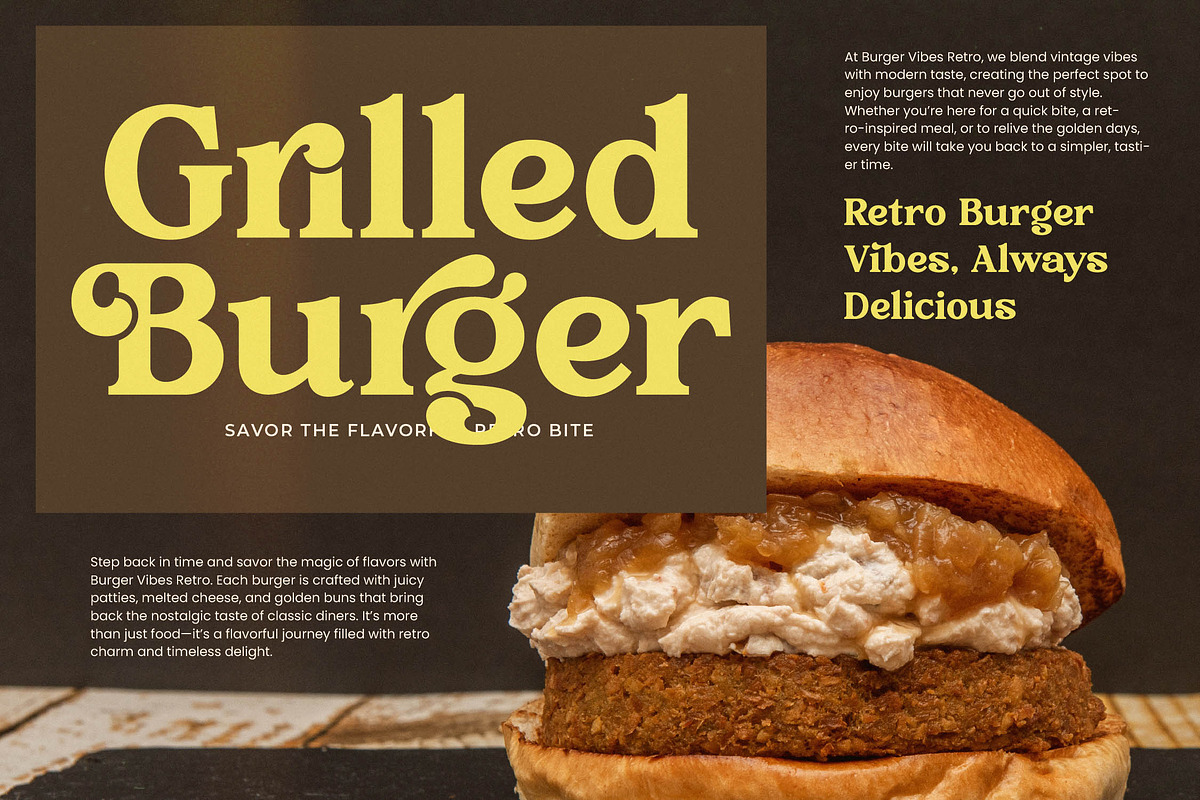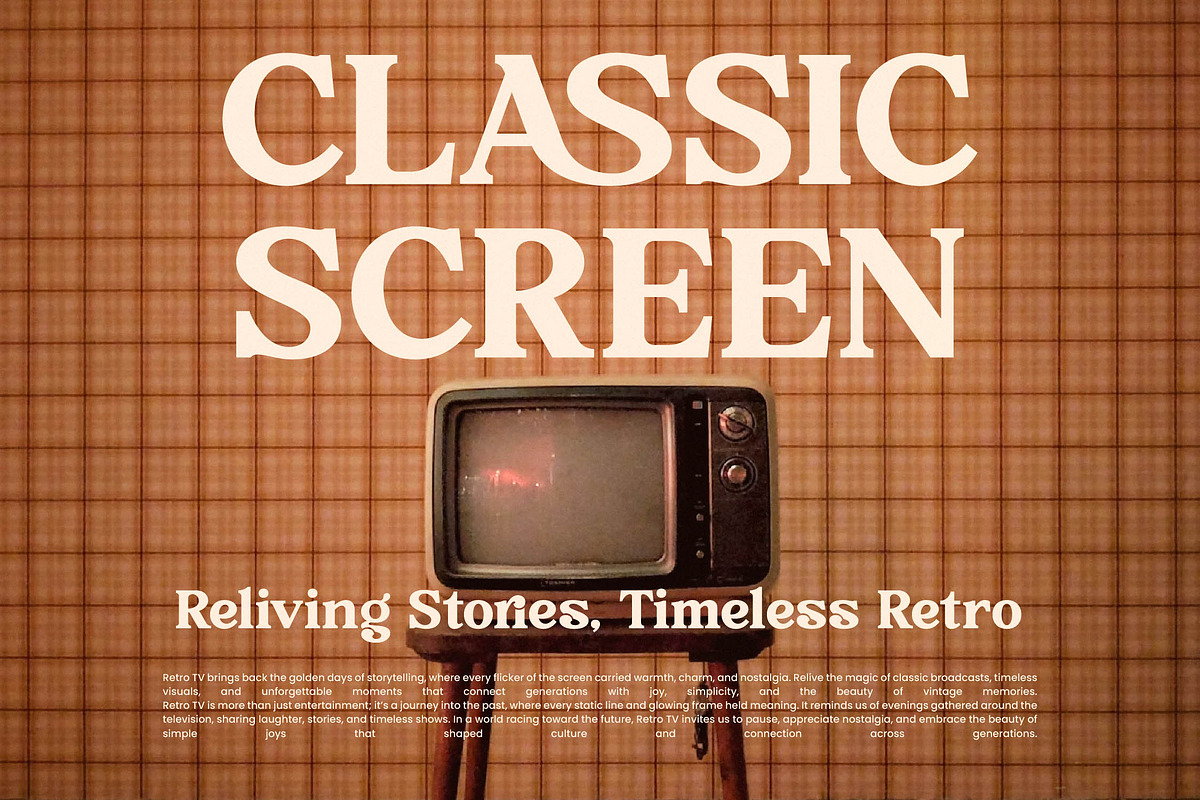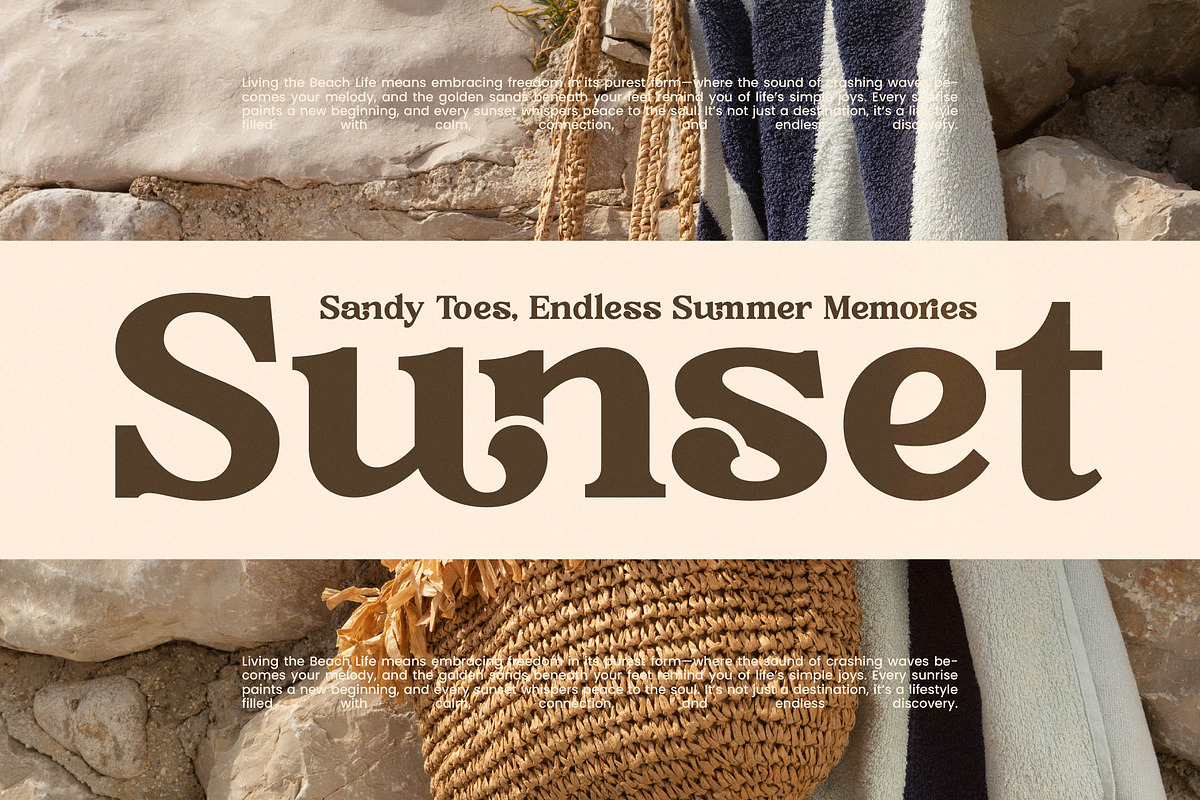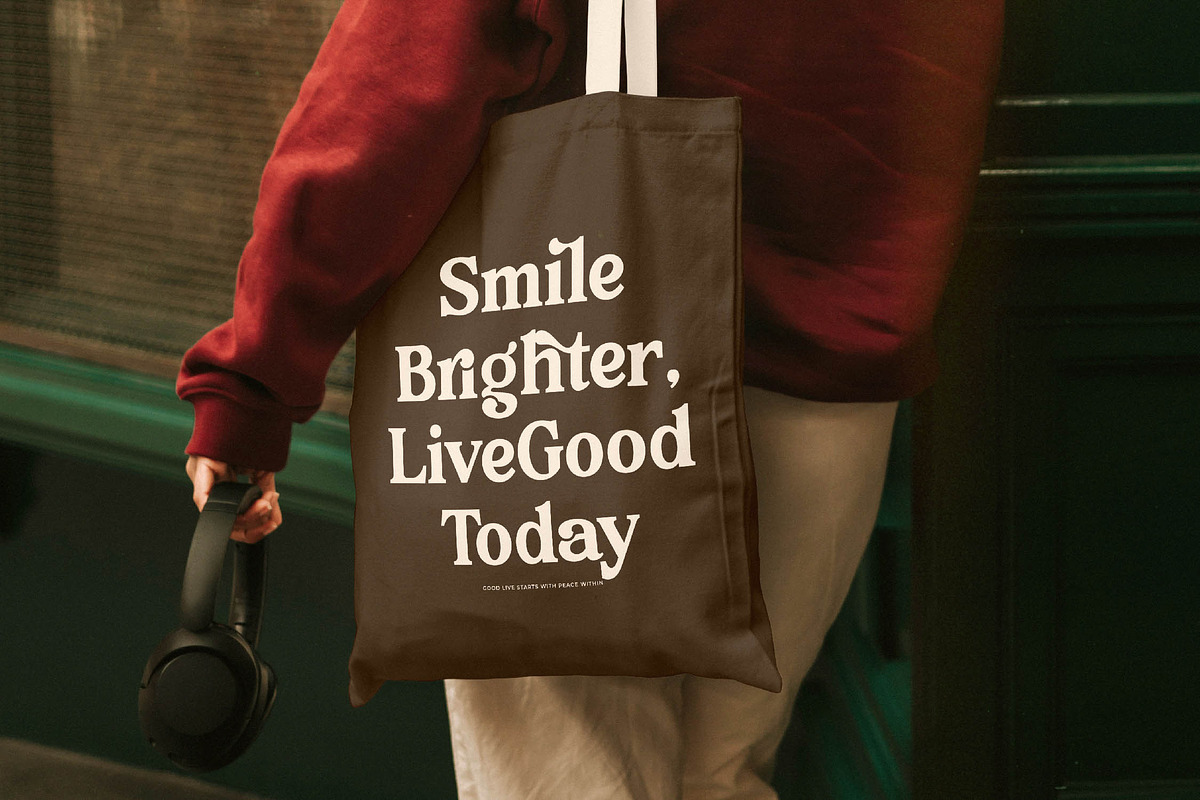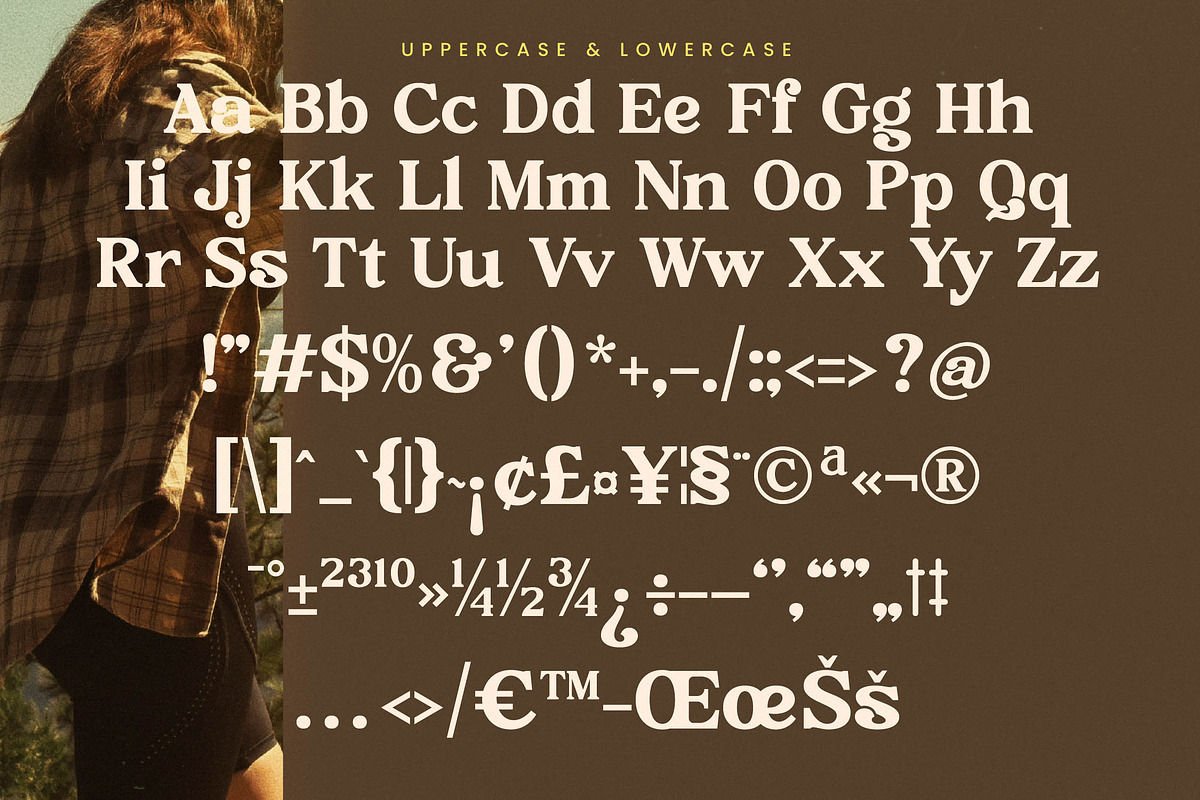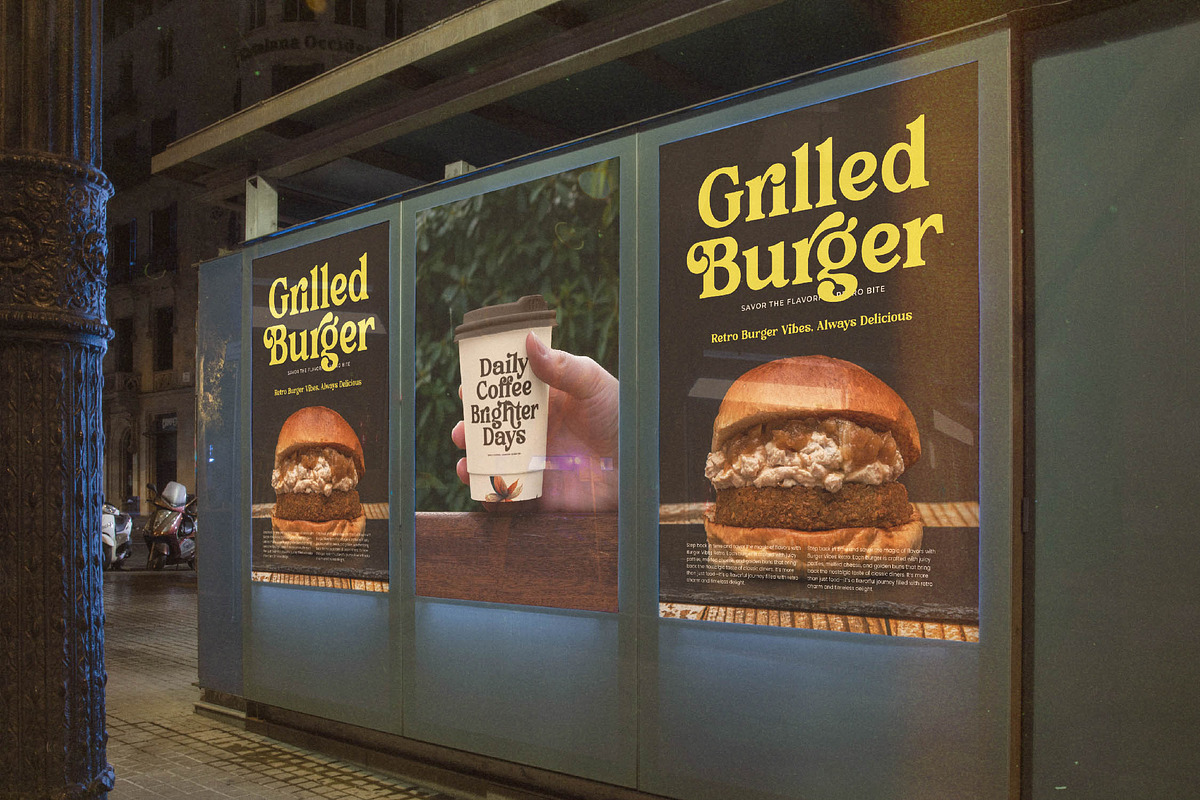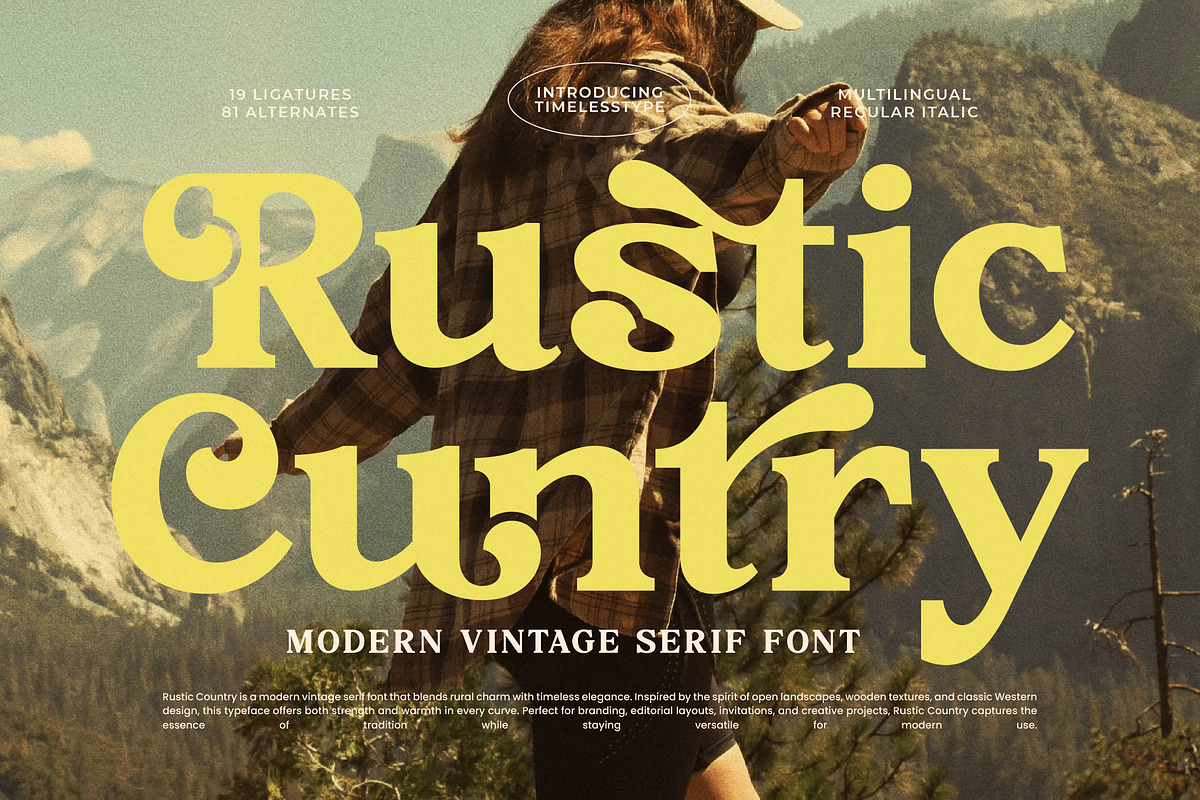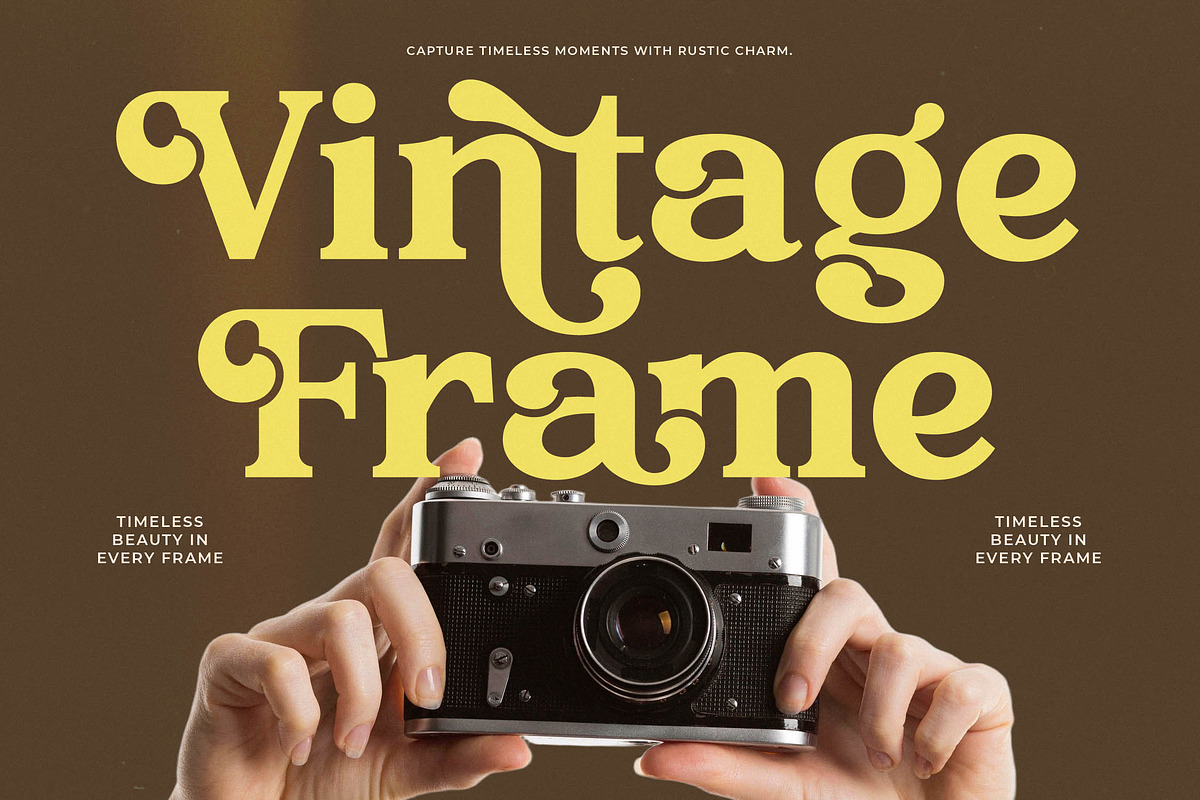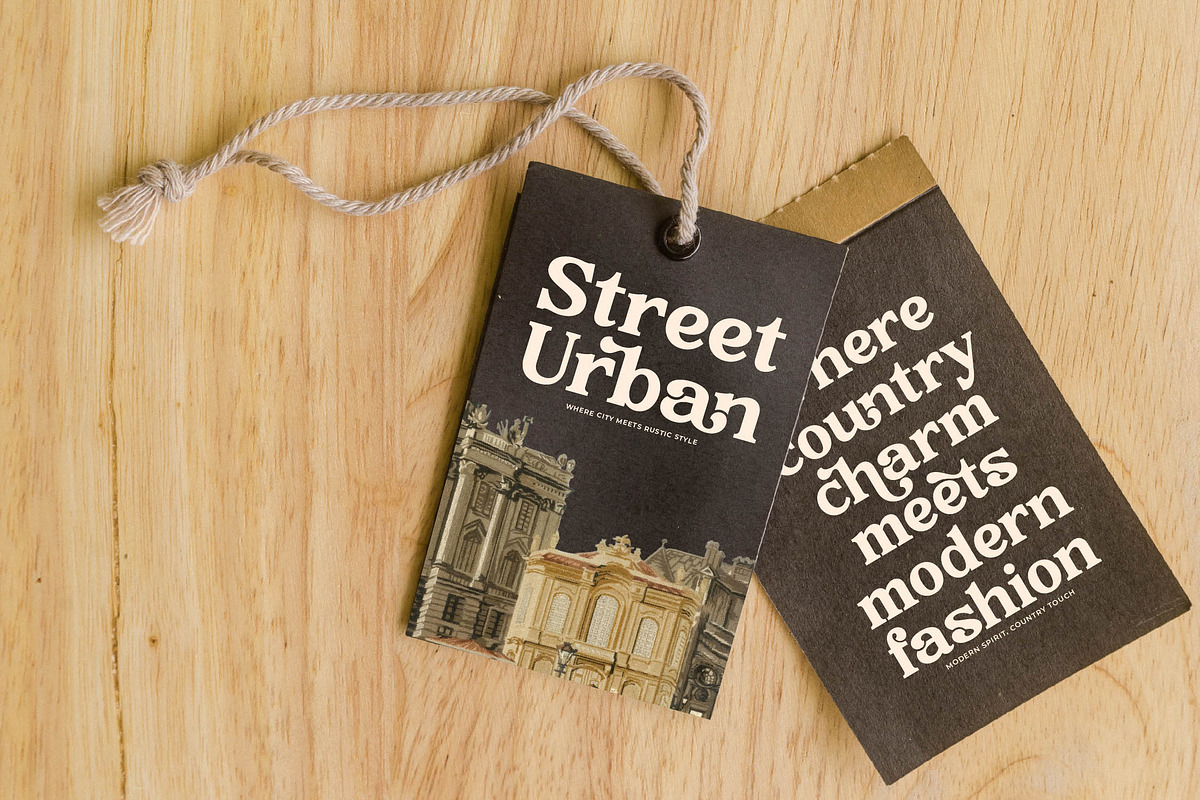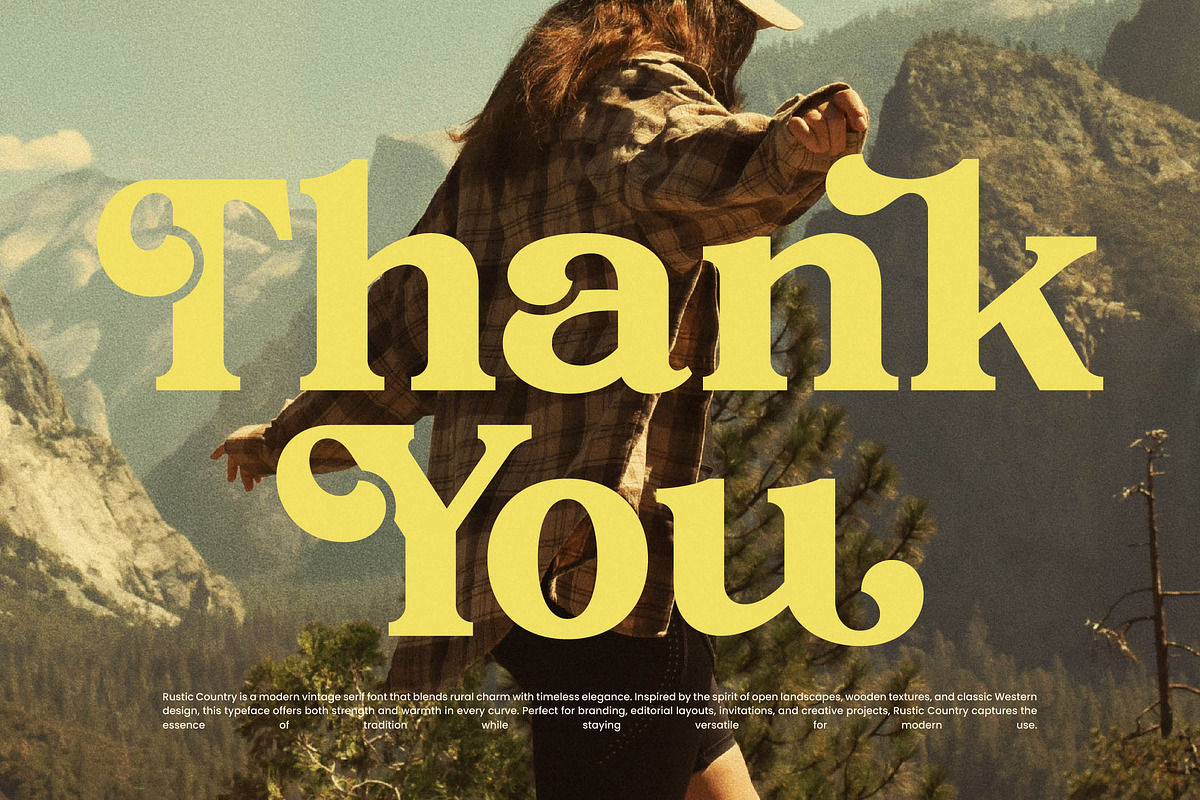
Rustic Cuntry Modern Vintage Serif
Experience the soulful embrace of the wild with Rustic Cuntry, a typeface that captures the raw beauty of the frontier and the refined grace of high-end design. This font invites your audience into a world where timeless elegance meets the rugged charm of the open road through every meticulously crafted curve.
Inspired by the sweeping vistas of mountain ranges and the organic textures of weathered wood, this collection draws its soul from classic Western heritage. It perfectly balances the history of vintage signage with a sophisticated, contemporary silhouette that feels both nostalgic and refreshingly new for the modern creator.
As a modern serif display choice, this typeface is engineered for maximum luxury typography appeal, offering a high-contrast serif look that immediately demands attention. It serves as a powerful editorial font for those looking to create a lasting branding impact through distinctive, character-rich letterforms that tell a story.
Aligning perfectly with the current modern serif trend, this typeface stands out among editorial display fonts by offering a unique, character-driven typography experience. Designers seeking to break away from sterile minimalism will find its expressive personality and bold proportions ideal for meeting current market demands.
This versatile asset is the ultimate tool for logo design and comprehensive branding identity systems that require a touch of human personality. From sophisticated editorial layouts and premium product packaging to romantic wedding stationery and high-end fashion lookbooks, its applications are as vast as the landscapes that inspired it.
Professional designers will appreciate the technical depth of this package, featuring 19 unique ligatures and 81 custom alternates to ensure every word is a masterpiece. The set includes beautiful swashes, full multilingual support, and a wide range of international characters to serve a global creative audience with ease.